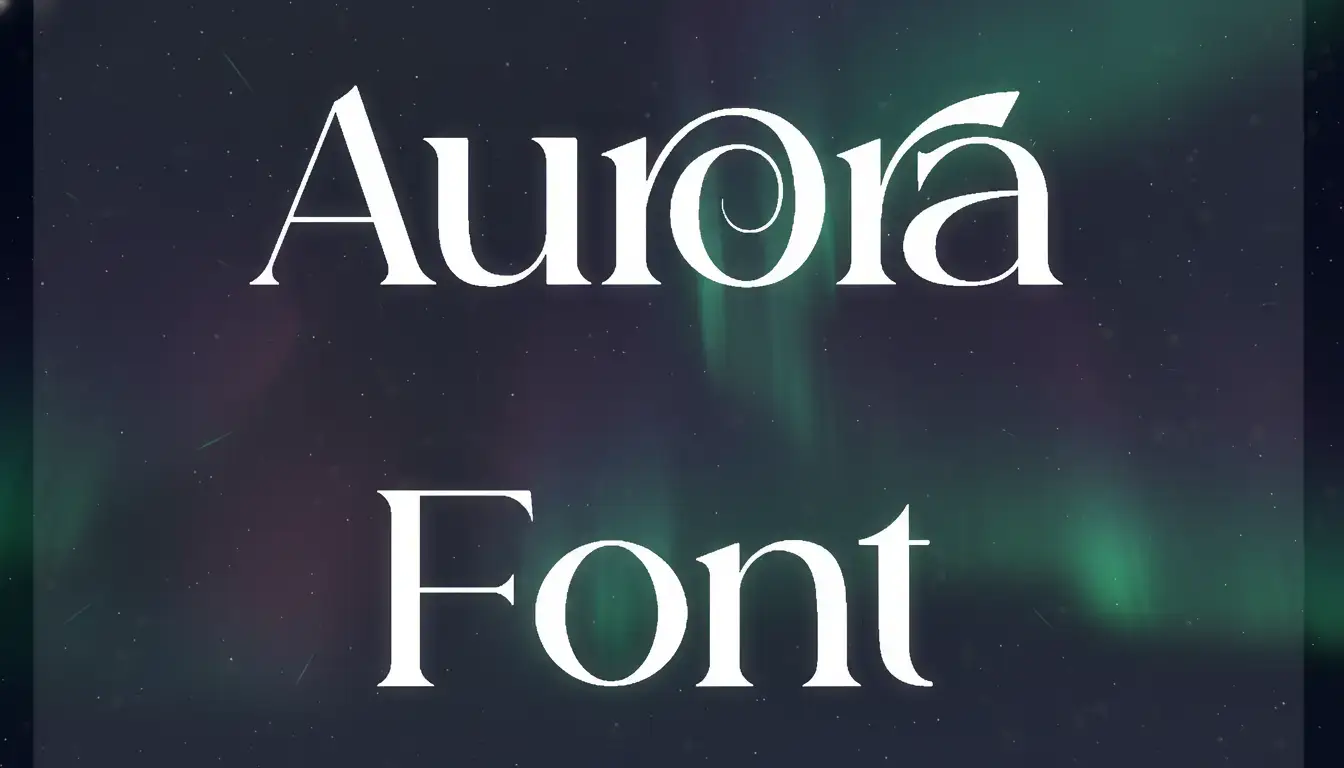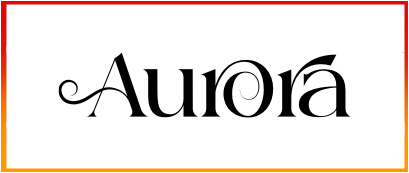
Aurora Font
Aurora
Aurora is a fancy font created by Heru Utama Putra and released through Storytype Studio. Bold and full of character, it's built to stand out rather than blend in. You can download it for free and test it with your own words in the preview above.
What You Can Type With Aurora
With complete upper and lowercase letters and all ten digits, Aurora is ready for real wording, not just a single headline. Everyday marks like &, !, ? and @ are there too. Thanks to its accented letters, it also works for Spanish, French, German, Portuguese and Italian, not just English.
Where Aurora Works Best
Designers usually reach for fonts like Aurora when they're making posters, logos and eye-catching headlines. Use it for one standout word or headline and let simpler fonts handle the rest.
Does Aurora support accented letters?
Yes. Aurora includes the accented letters needed for Spanish, French, German, Portuguese and Italian, so it works for more than just English.